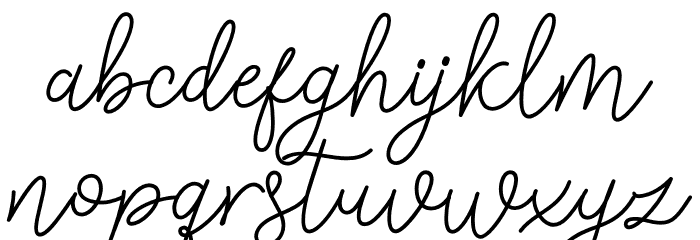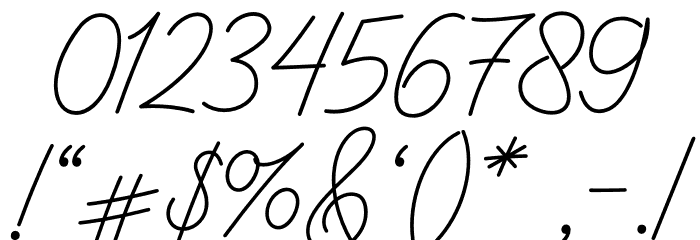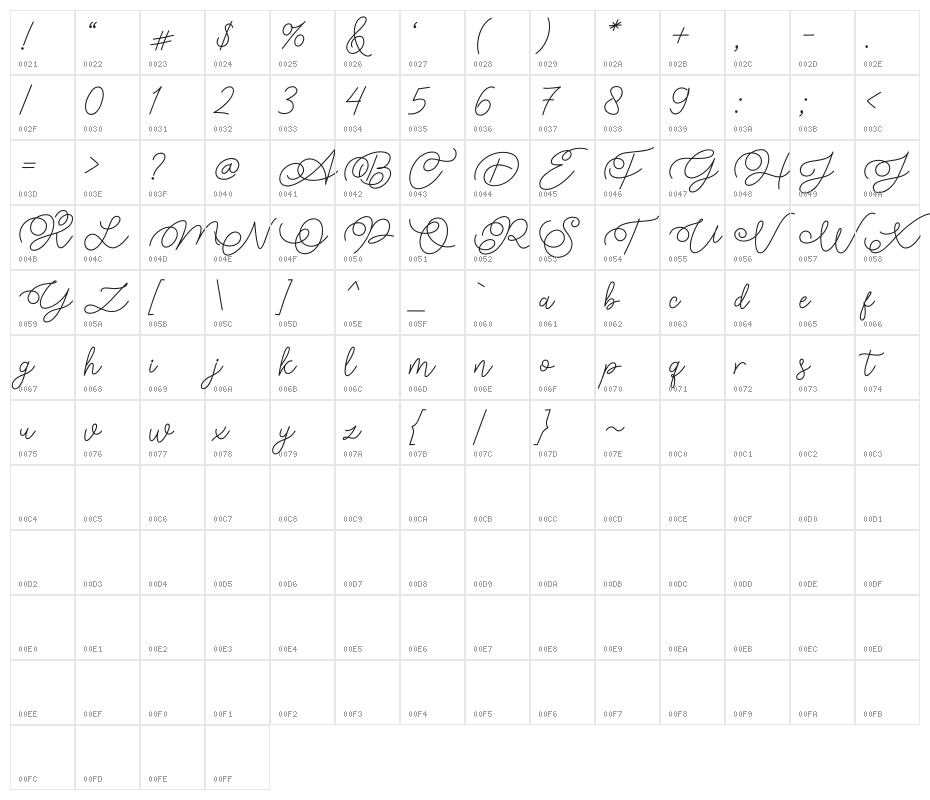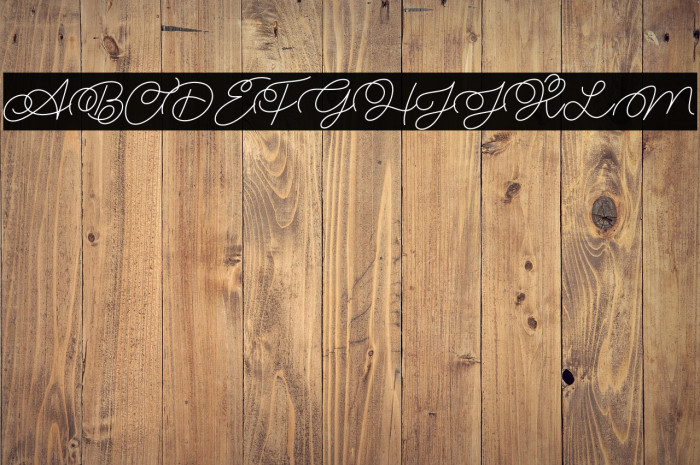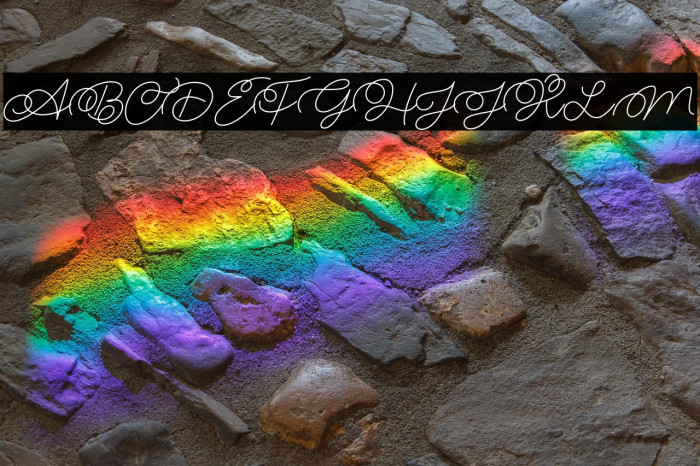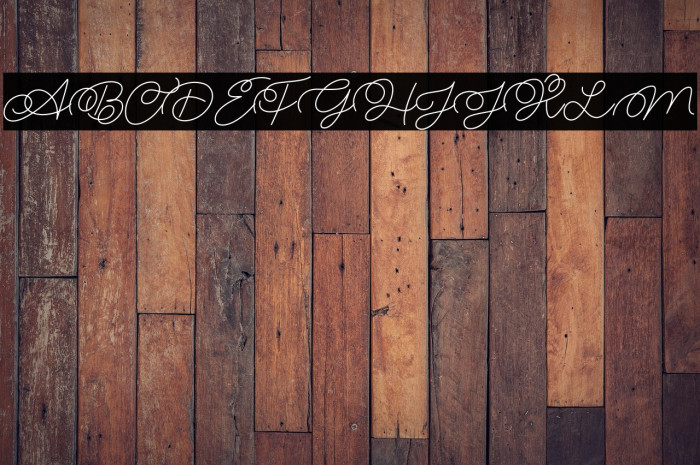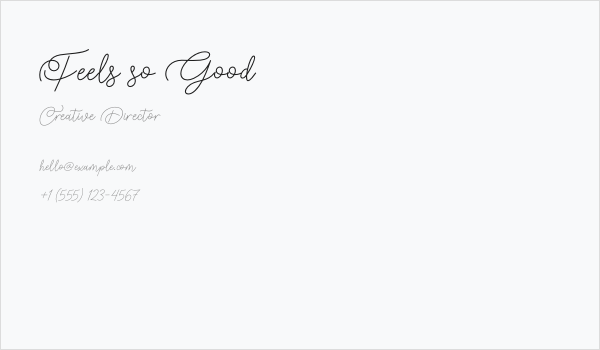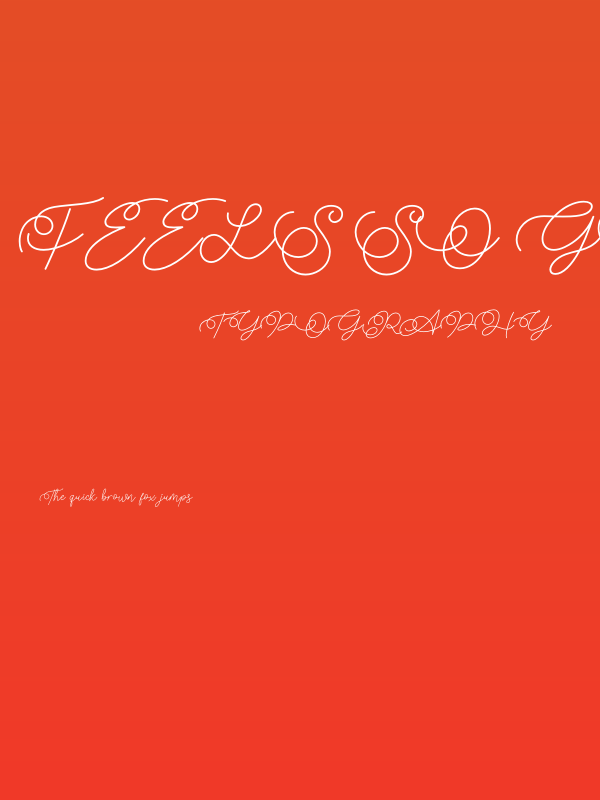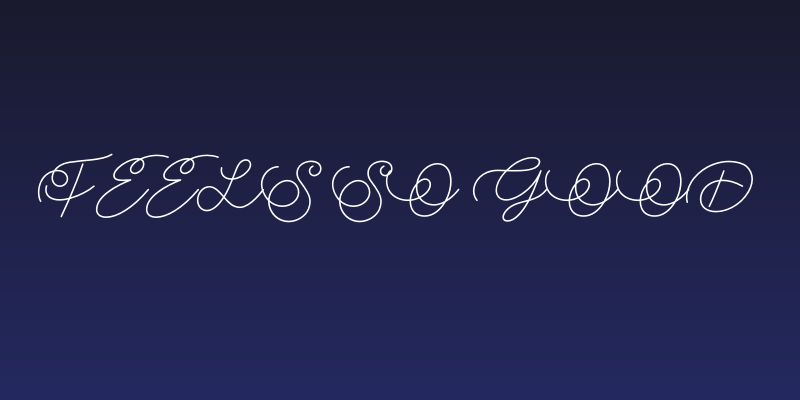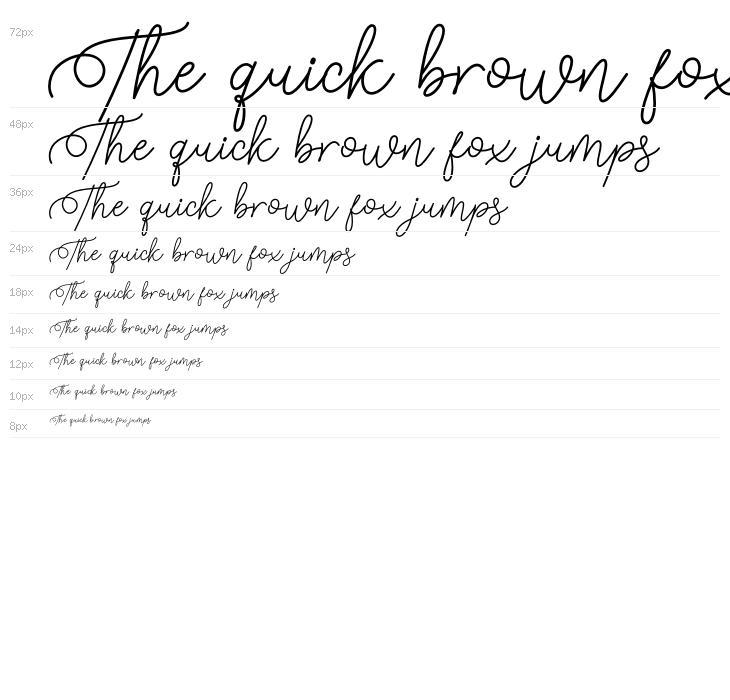
Feels so Good Font
This font exudes a playful and elegant charm with its flowing, cursive style. The letters are interconnected, creating a seamless and fluid appearance that is both sophisticated and approachable. The uppercase letters are ornate, with intricate loops and swirls, while the lowercase letters maintain a consistent, graceful flow. The numerals and special characters are designed to complement the overall aesthetic, featuring similar curves and loops. This font is perfect for projects that require a touch of elegance and personality, such as invitations, greeting cards, and branding materials.
A playful and elegant cursive font with flowing, interconnected letters.
- Font: Feels so Good
- Proposed Projects: Ideal for invitations, greeting cards, branding, and decorative projects.
- Category: Script
- Overall Style: Elegant and Playful
- Use Case: Headlines, Decorative text, Invitations